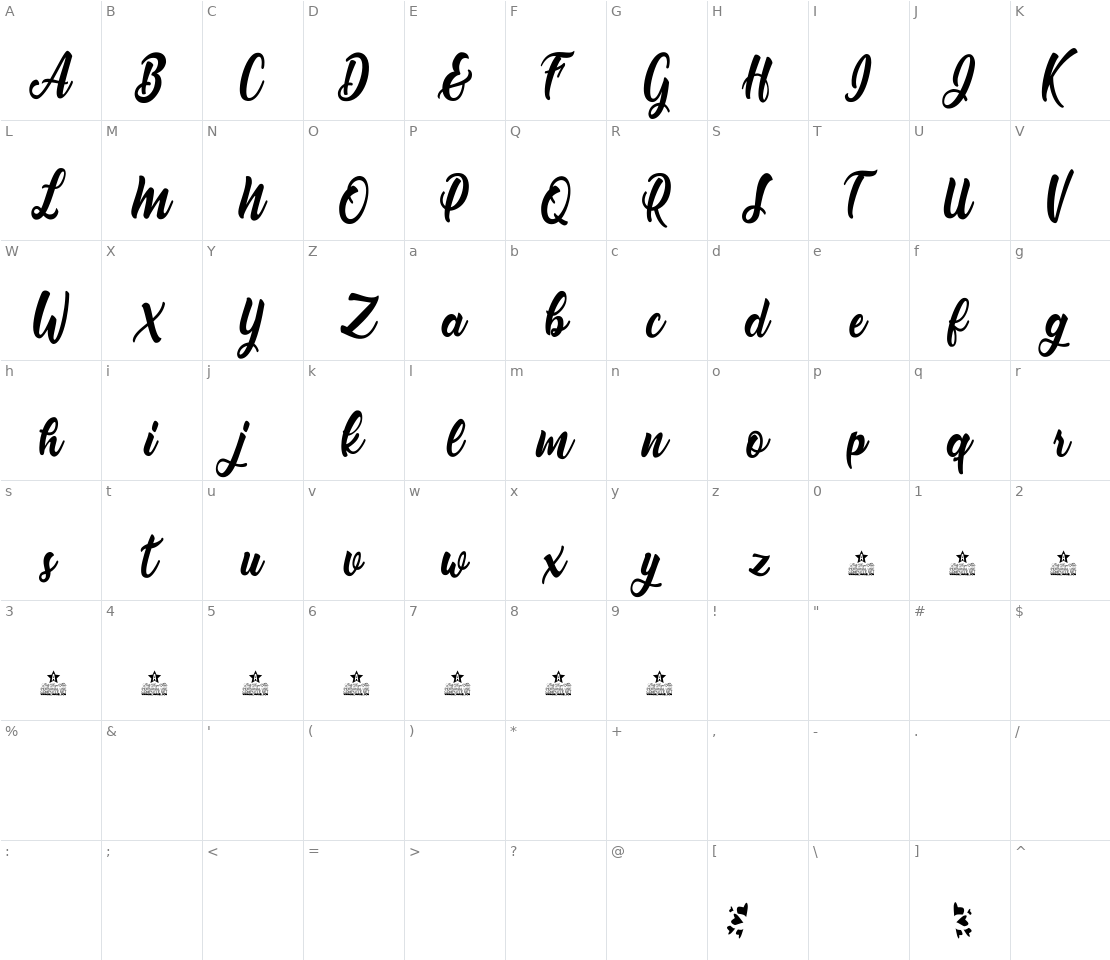
Nirvana
Nirvana is a thick, expressive brush face from Billy Argel with bold strokes that feel fast and confident, like they were laid down in a single pass with a loaded brush. The letterforms carry a casual energy without losing their structure, making them work well for headlines, posters, and branding that needs to feel hand-painted and alive. It's a display face through and through, built to be big and unapologetic.